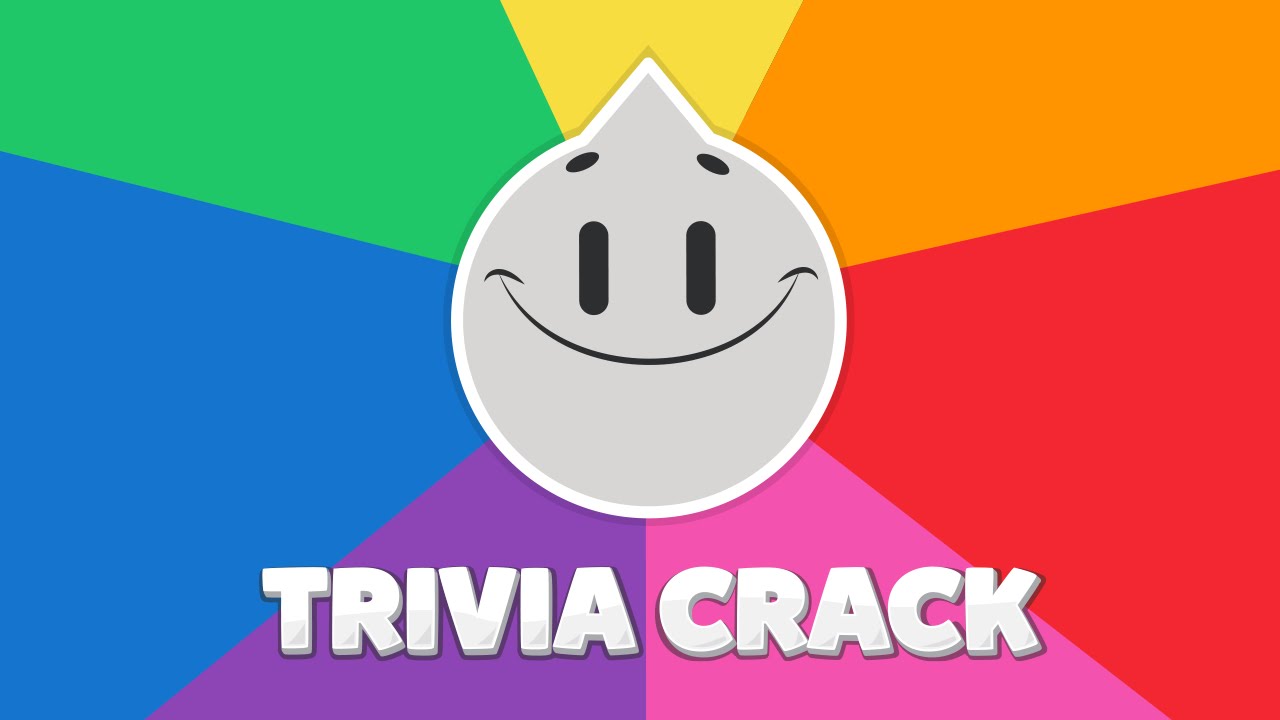
Trivia Crack Font
EntertainmentTrivia Crack is a mobile game app where players can compete against each other in trivia categories such as science, history, art, sports, and entertainment to answer questions and collect characters.
The game's logo features Mikado, a friendly sans-serif typeface developed by HVD Fonts. Mikado is available in six weights, ranging from Light to Ultra, with matching italics. The Bold weight of Mikado has a demo version, which can be downloaded for free here at FontGet.